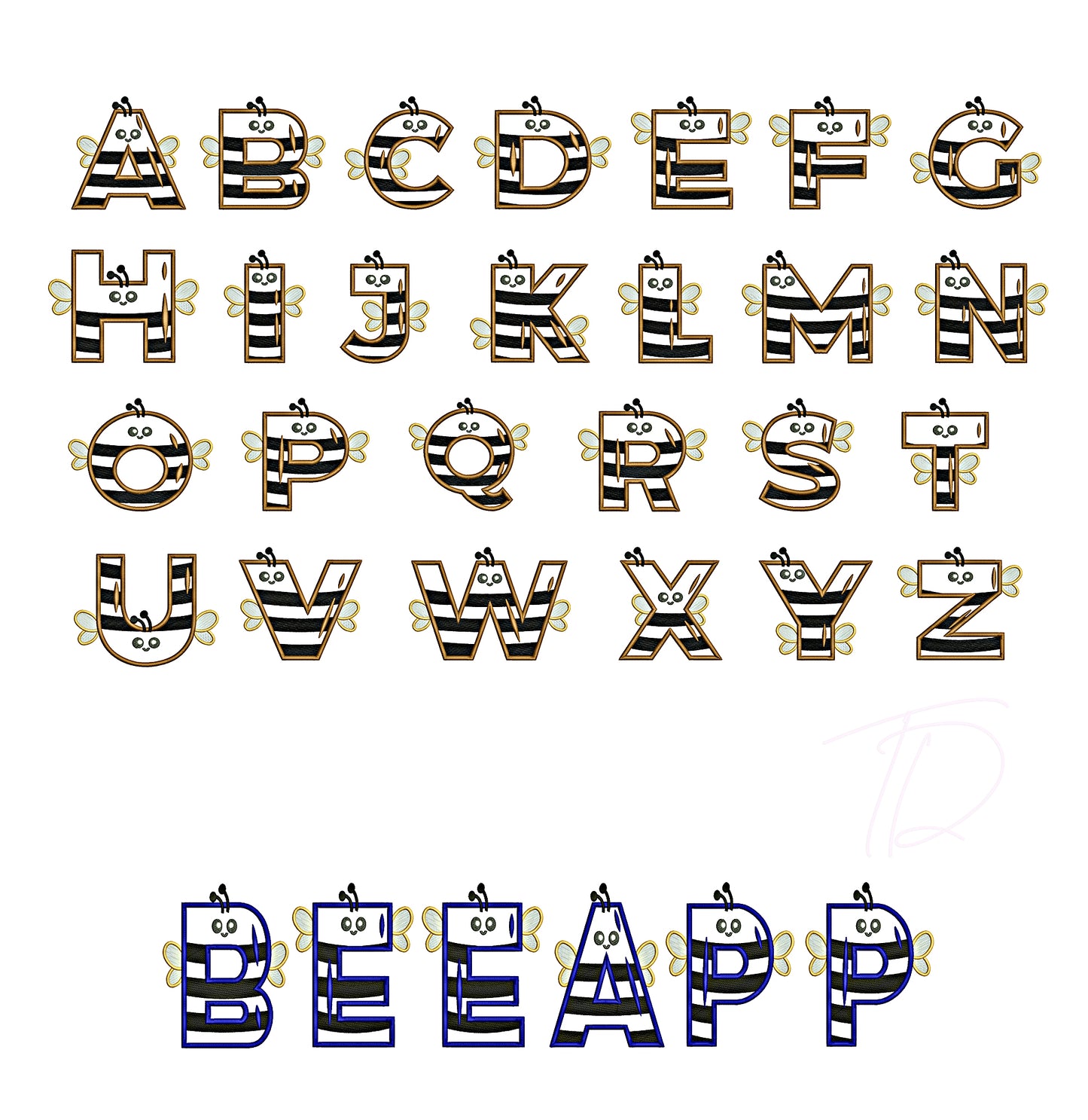
Bee applique embroidery digital font. Machine embroidery alphabet applique with bee. BX format
Bee applique embroidery digital font
This font comes with letters in 3 sizes, A-Z